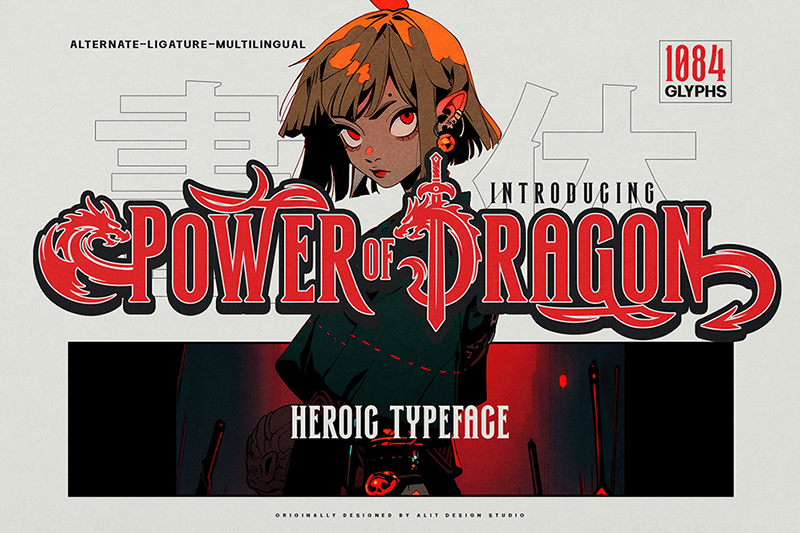
Preview and download Power of Dragon Font. Created by Alit Design in Gothic Modern styles with Free for personal use license.
who aspire to be legendary. Embrace the spirit of a super hero anime with this powerful typeface that combines strength, elegance, and a touch of fantasy. This is font Demo just for personal use, Not permitted for commercial use. The donation is very appreciated. Please check here for more info about the license: https://alitdesign.net/license/ DOWNLOAD FULL VERSION AND FOR COMMERCIAL USE: https://alitdesign.net/product/power-of-dragon-typeface/ Creative Market: https://crmrkt.com/alJVb2 visit my website for full version and commercial use: https://alitdesign.net/ follow my Instagram to update my portfolio: https://www.instagram.com/alitdesign_studio/ Email : info@alitdesign.net |